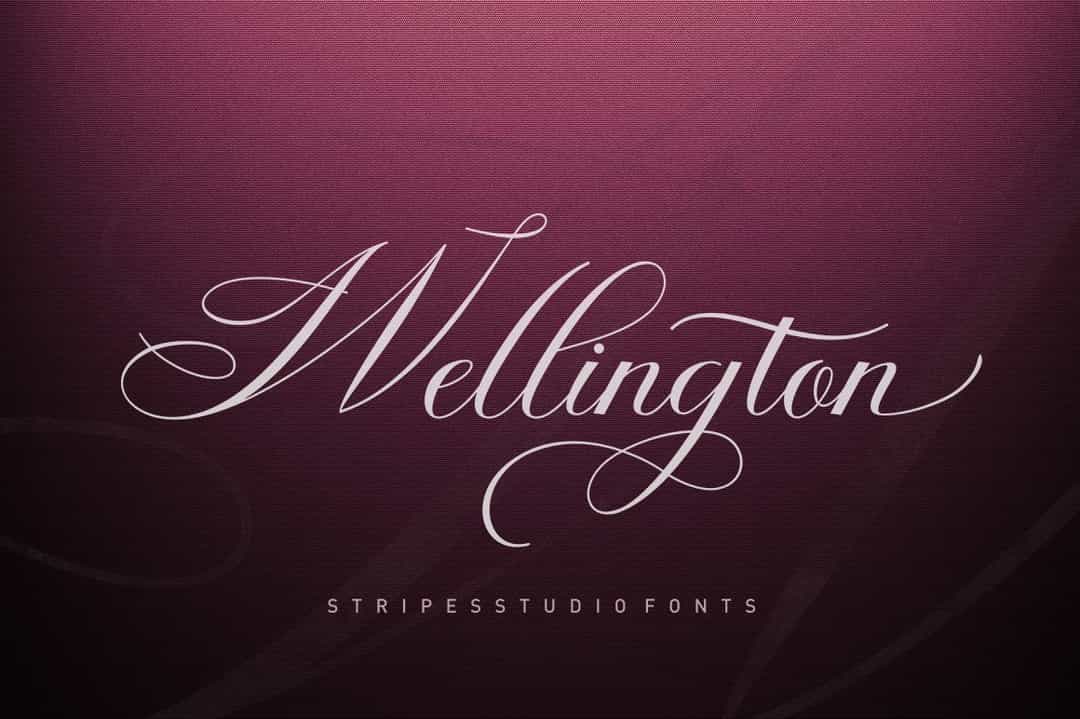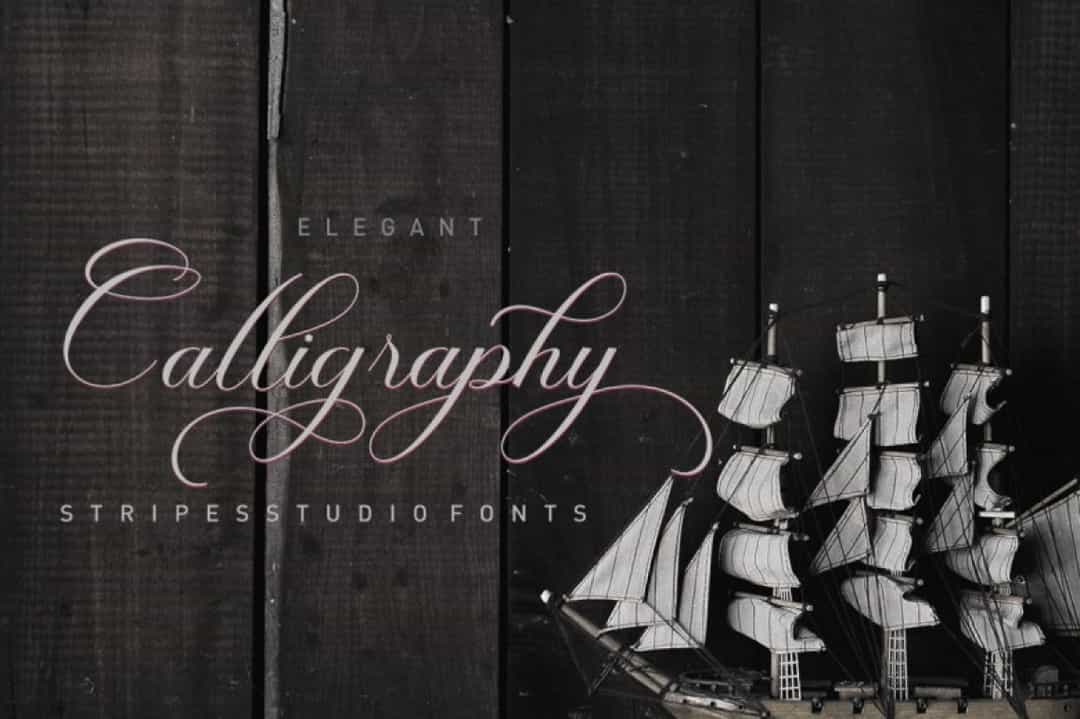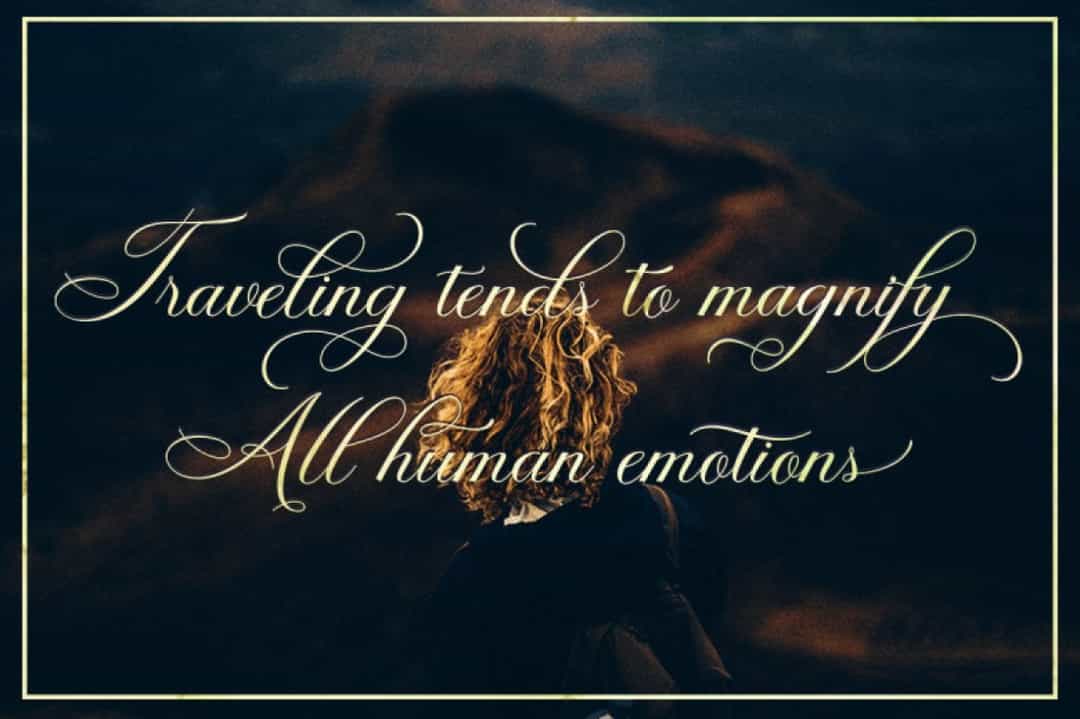
Wellington Script Calligraphy font features contemporary hand scratches to give an authentic aesthetic, we hope that you are drawn to its modern appearance and can use it effortlessly and quickly in creating your work, as it offers various features including lowercase letters as well as punctuation marks numbers multilingual support ligature styles and alternate styles – perfect!